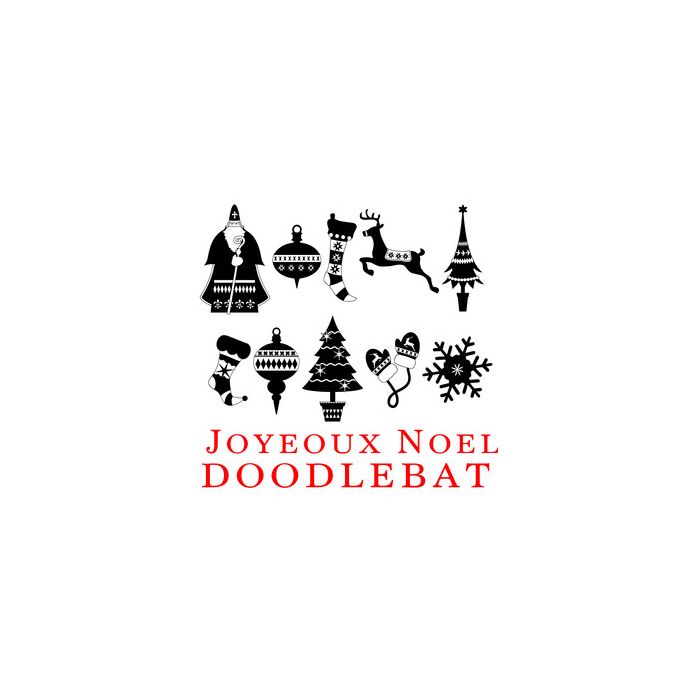
db joyeoux noel dingbats font
This dingbat font has 26 intricately designed and beautiful Christmas graphics with a very European flair. Get more fonts like this at